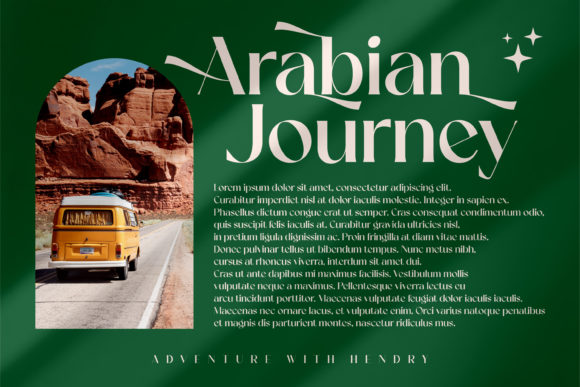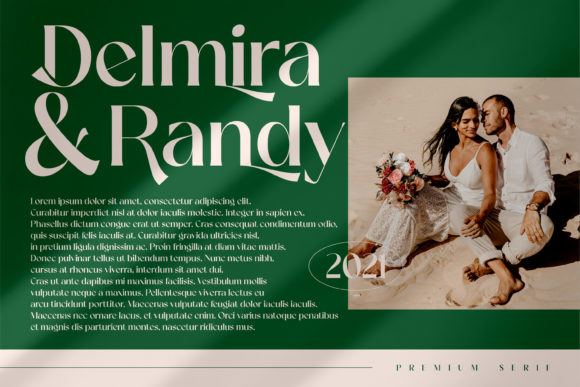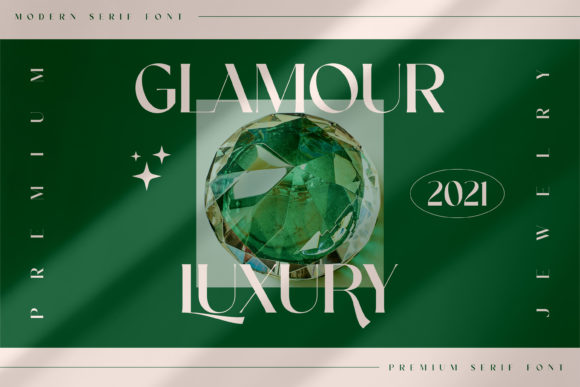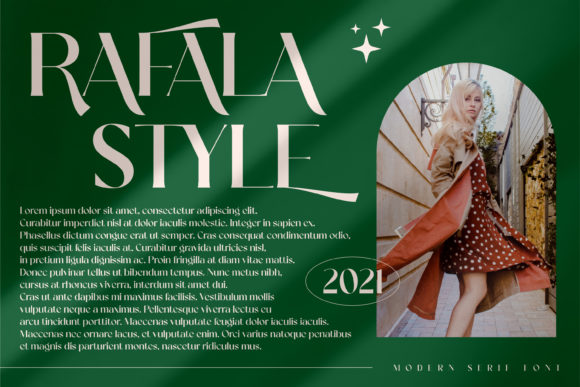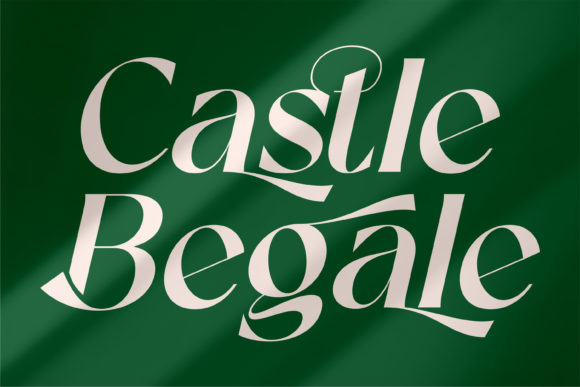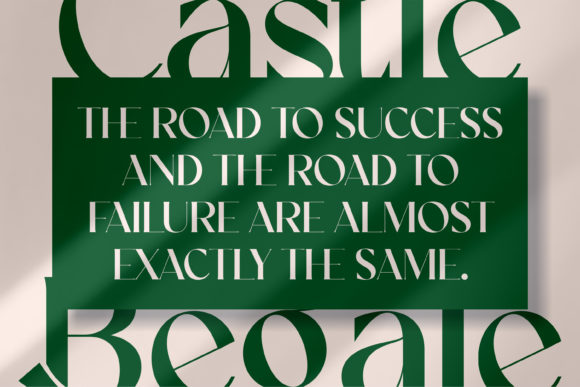
Introducing Castle Begale Font: Elevate Your Designs with Elegance and Sophistication
In the world of typography, a font can make or break a design. It’s the foundation upon which the entire visual aesthetic is built. For designers and crafters seeking to add a touch of elegance and sophistication to their creations, look no further than the Castle Begale Font. This stylish, classy, and modern serif font is poised to become a staple in your font library, capable of enhancing any project with its unique charm.
The Essence of Castle Begale Font
Castle Begale is more than just a font; it’s an experience. With its sleek lines, refined curves, and meticulous attention to detail, this font exudes a sense of luxury and professionalism. Whether you’re working on a branding project, a website design, or crafting beautiful stationery, Castle Begale brings a level of sophistication that’s hard to match.
One of the standout features of Castle Begale is its versatility. Regardless of the topic or theme of your project, this font seamlessly adapts, ensuring your design looks polished and cohesive. From elegant headings to detailed body text, Castle Begale maintains its classy demeanor, making it an incredibly versatile asset for any designer.
PUA Encoding: Unlocking Full Potential
Castle Begale takes convenience to the next level with its PUA (Private Use Area) encoding. This means that accessing all the glyphs and swashes is incredibly straightforward. Designers can easily navigate through the font’s extensive features, allowing for a more creative and efficient workflow. No more tedious searching for the perfect character or embellishment; with Castle Begale, everything you need is at your fingertips.
Applications of Castle Begale Font
The applications of Castle Begale are vast and varied. Here are a few ideas to get you started:
- Branding and Logotypes: Create a lasting impression with a logo that embodies elegance and sophistication.
- Web Design: Enhance your website’s typography, making it more engaging and professional.
- Print Materials: Elevate your business cards, brochures, and posters with a font that commands attention.
- Packaging: Stand out on store shelves with product packaging that exudes luxury and quality.
- Stationery: Add a personal touch to your letters, invitations, and thank you cards.
Why Choose Castle Begale Font?
With so many fonts available, why choose Castle Begale? The answer lies in its perfect blend of style, versatility, and practicality. Here are a few reasons why Castle Begale stands out:
- Unique Aesthetic: Offers a distinctive look that sets it apart from more traditional serif fonts.
- Ease of Use: PUA encoding makes it easy to access and use a wide range of glyphs and swashes.
- High Versatility: Suitable for a wide range of projects, from digital to print.
- Professional Quality: Adds a touch of elegance and sophistication to any design.
Castle Begale Font is a game-changer for designers and crafters looking to elevate their projects with a stylish, classy, and modern serif font. Its unique aesthetic, combined with the convenience of PUA encoding, makes it an invaluable asset to any font library. Whether you’re aiming to create stunning branding, beautiful websites, or captivating print materials, Castle Begale is up to the task. Embrace the elegance and sophistication that Castle Begale brings, and watch your designs transform into something truly remarkable.